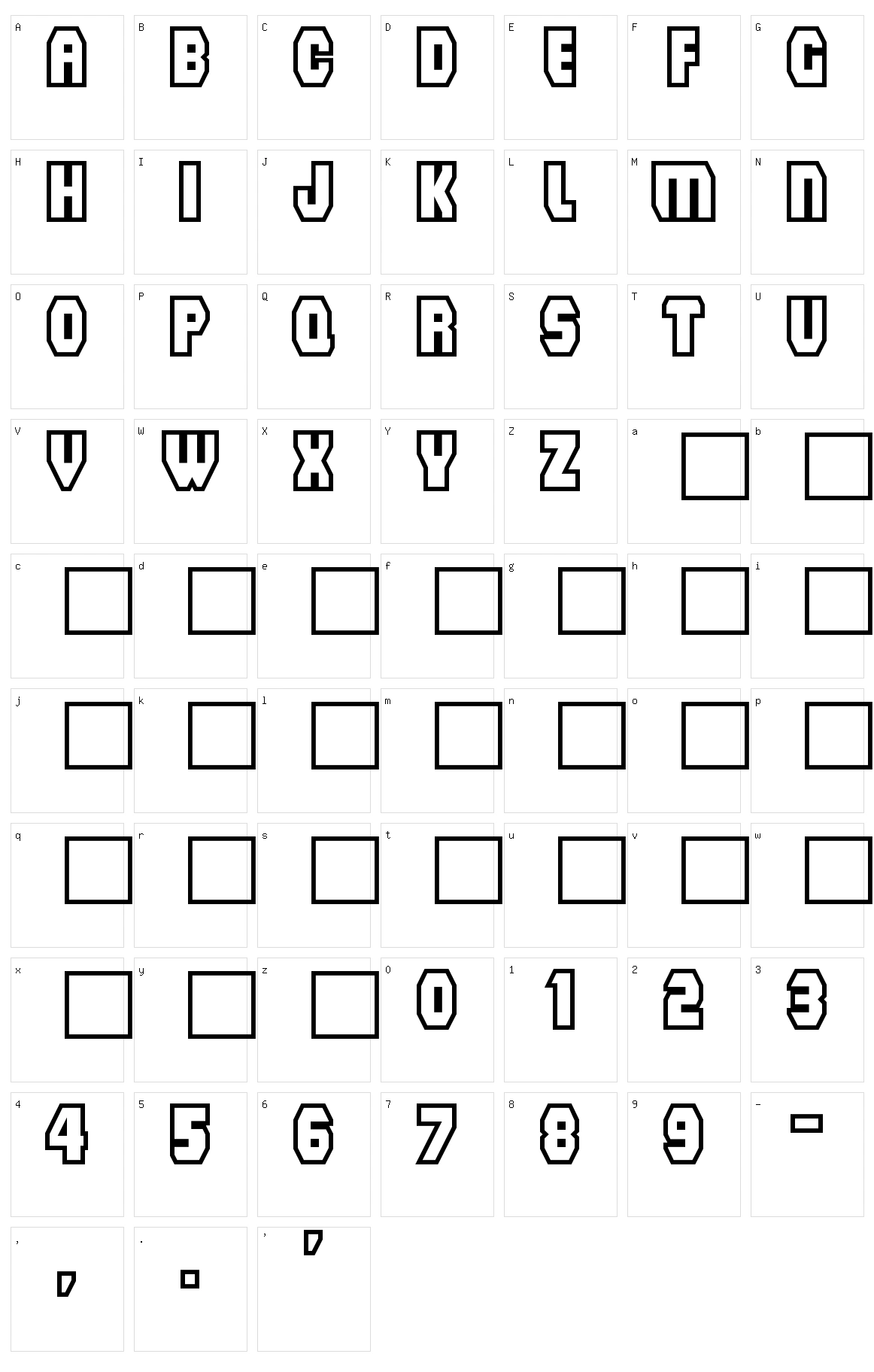
The free font Mad Groove Clean is carefully designed by imagex, showcasing a thoughtful balance of creativity and usability and falls under the Square font style. When you download the ZIP file, it contains only 2.64 KB of font files, making it lightweight and quick to download. Please review the license details below to understand permitted usage and distribution rights. If license information is not available, we recommend using this font for personal projects only or contacting the author directly for commercial usage permissions.